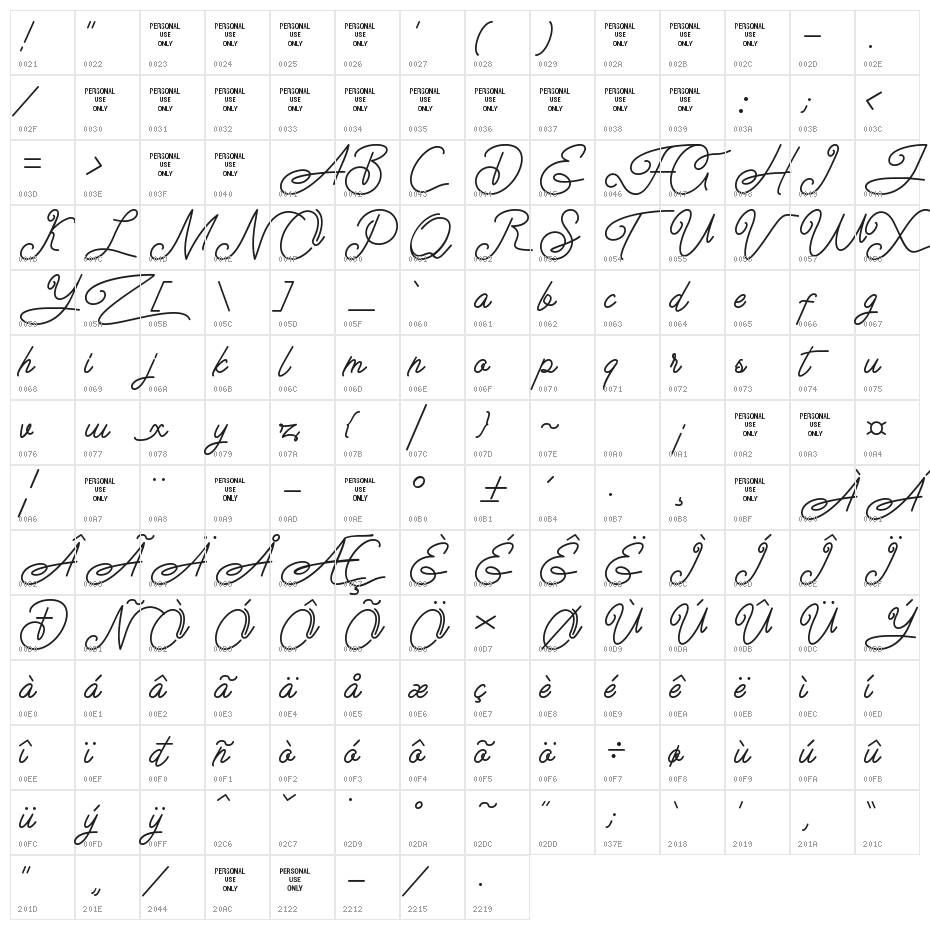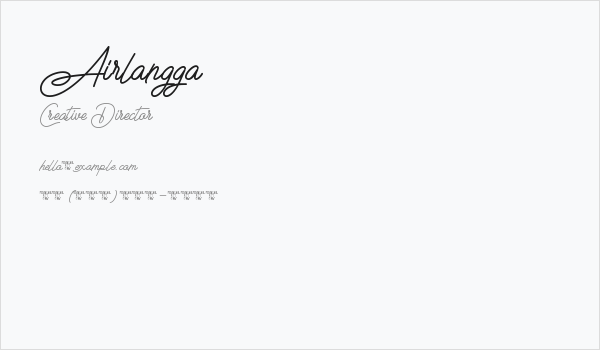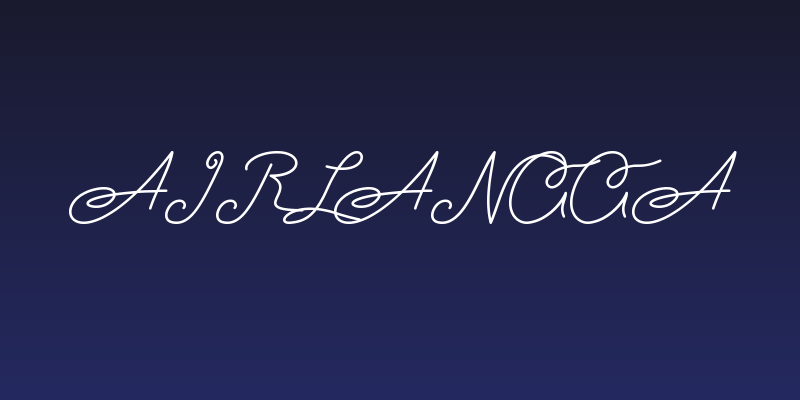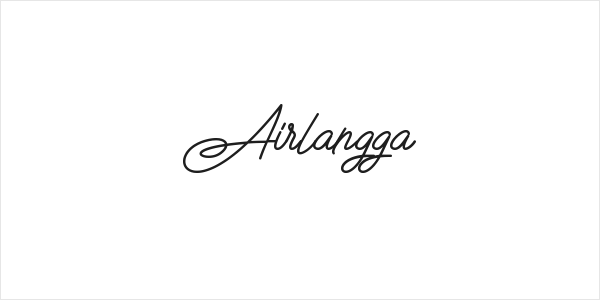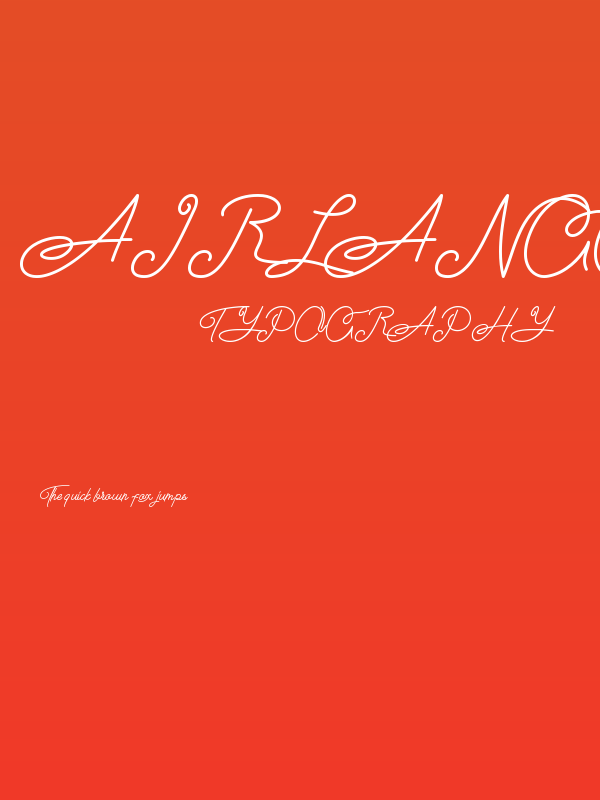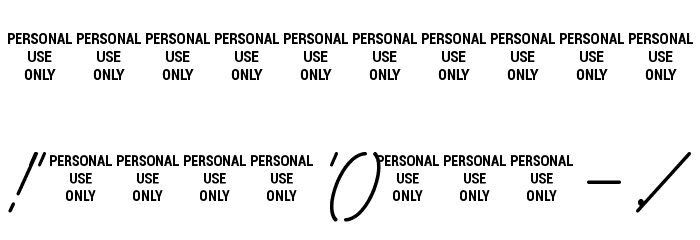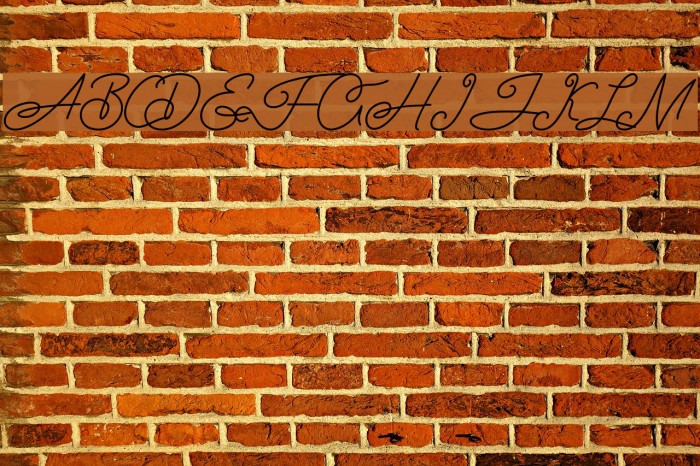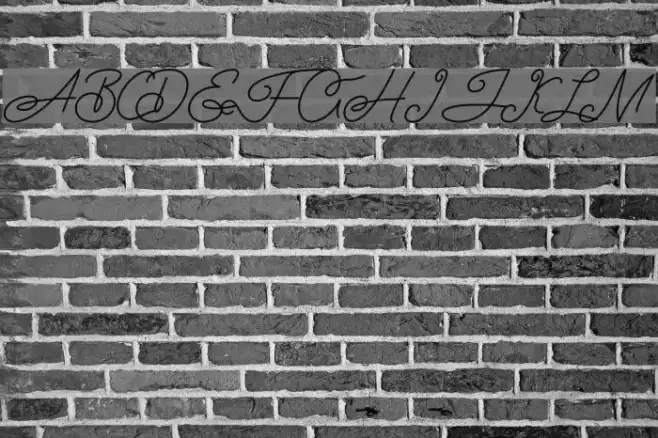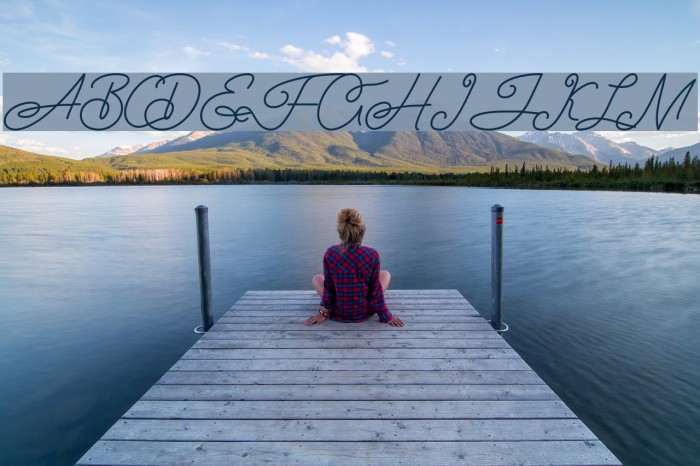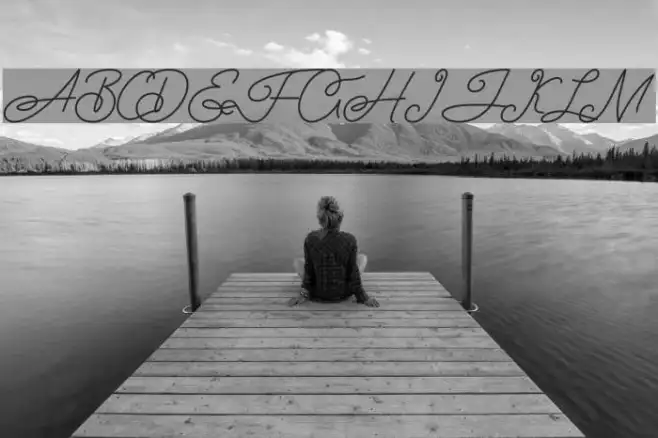
Airlangga Font
Airlangga Description
This font features an elegant and flowing script style, characterized by its smooth, connected strokes and graceful curves. The uppercase letters exhibit a sophisticated flair with intricate loops and swashes, while the lowercase letters maintain a consistent flow, enhancing readability. The font's design is reminiscent of classic calligraphy, making it suitable for formal and decorative applications. The numerals and special characters are crafted with the same attention to detail, ensuring a cohesive look across all text elements.
| Proposed Projects | Ideal for wedding invitations, elegant branding, greeting cards, and decorative headings. |